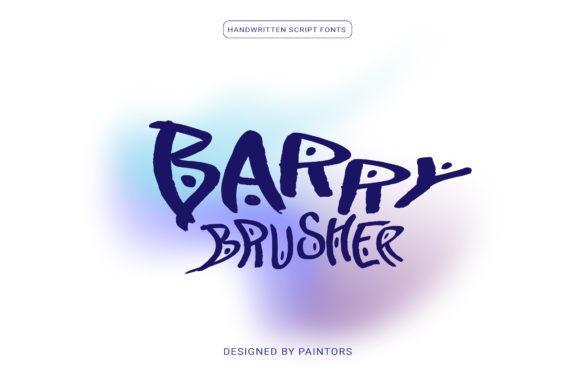
Welcome to the world of Barry Brusher Font - a script font family that exudes elegance and charm. With its handmade calligraphy style, Barry Brusher promises to add a touch of sophistication to all your creative projects. Step into a realm where letters dance with grace, effortlessly conveying heartfelt messages and inviting warmth.
Barry Brusher Font is a symphony of gentle curves and soft lines, creating an atmosphere of comfort and familiarity. It's the perfect choice for expressing your deepest emotions, whether it's in heartfelt letters, captivating invitations, or adding a personal touch to your creative endeavors. Let your words flow with elegance, leaving a lasting impression on the hearts of your readers.
With Barry Brusher Font, you'll discover a font that captivates attention, igniting a spark of curiosity and intrigue. Its distinct style adds a layer of depth and dimension to your designs, making them stand out from the mundane. Embrace the beauty of handwritten artistry, and let your imagination soar as you craft stunning visuals with Barry Brusher Font.
Join the creative revolution and immerse yourself in the world of Barry Brusher Font. Its versatility knows no bounds, whether you're designing wedding invitations, crafting heartfelt cards, or creating captivating social media posts. Unleash your inner artist and let your creativity flourish, knowing that Barry Brusher Font will elevate your designs to new heights.